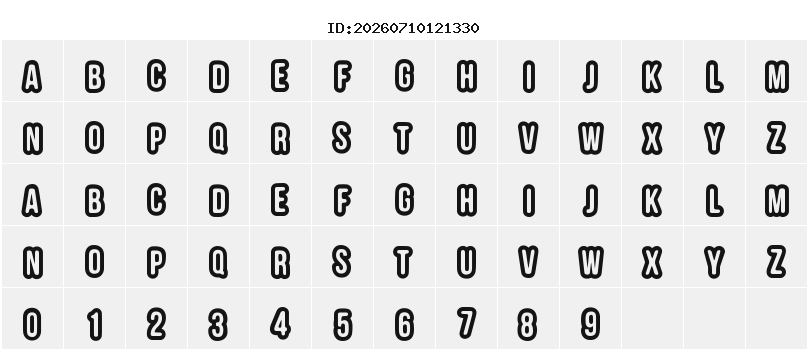
EFECTIVA Preview
• Font Name: EFECTIVA
• Font ID: EFECTIVA:Version 1.00
• Full Font Name: EFECTIVA
• Version: Version 1.00 April 22, 2014, initial release
• PostScript Name: EFECTIVA
About EFECTIVA.ttf
EFECTIVA.ttf is a modern, elegant sans-serif font designed for ultimate readability and visual harmony. Perfect for branding, headlines, web design, and print materials.